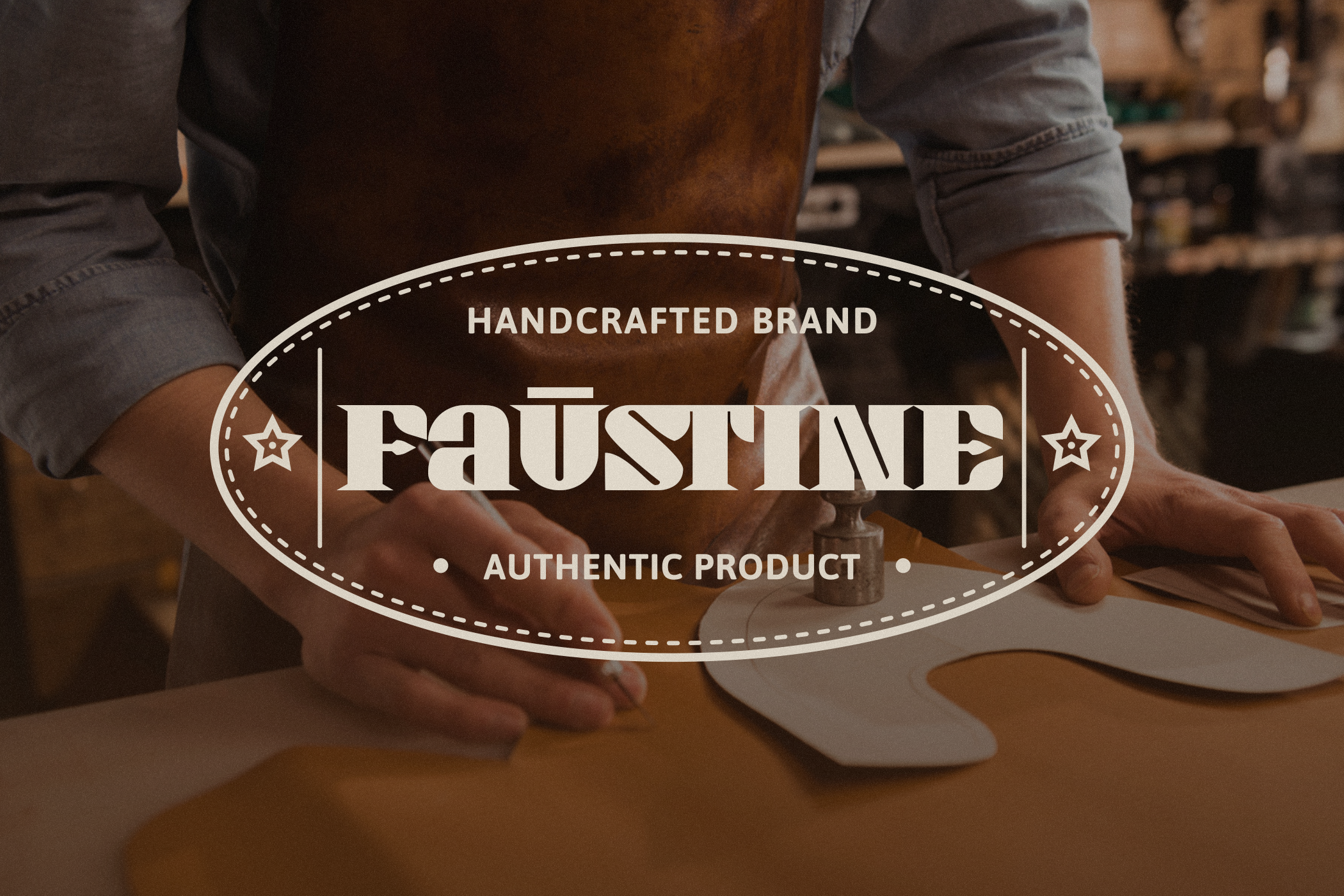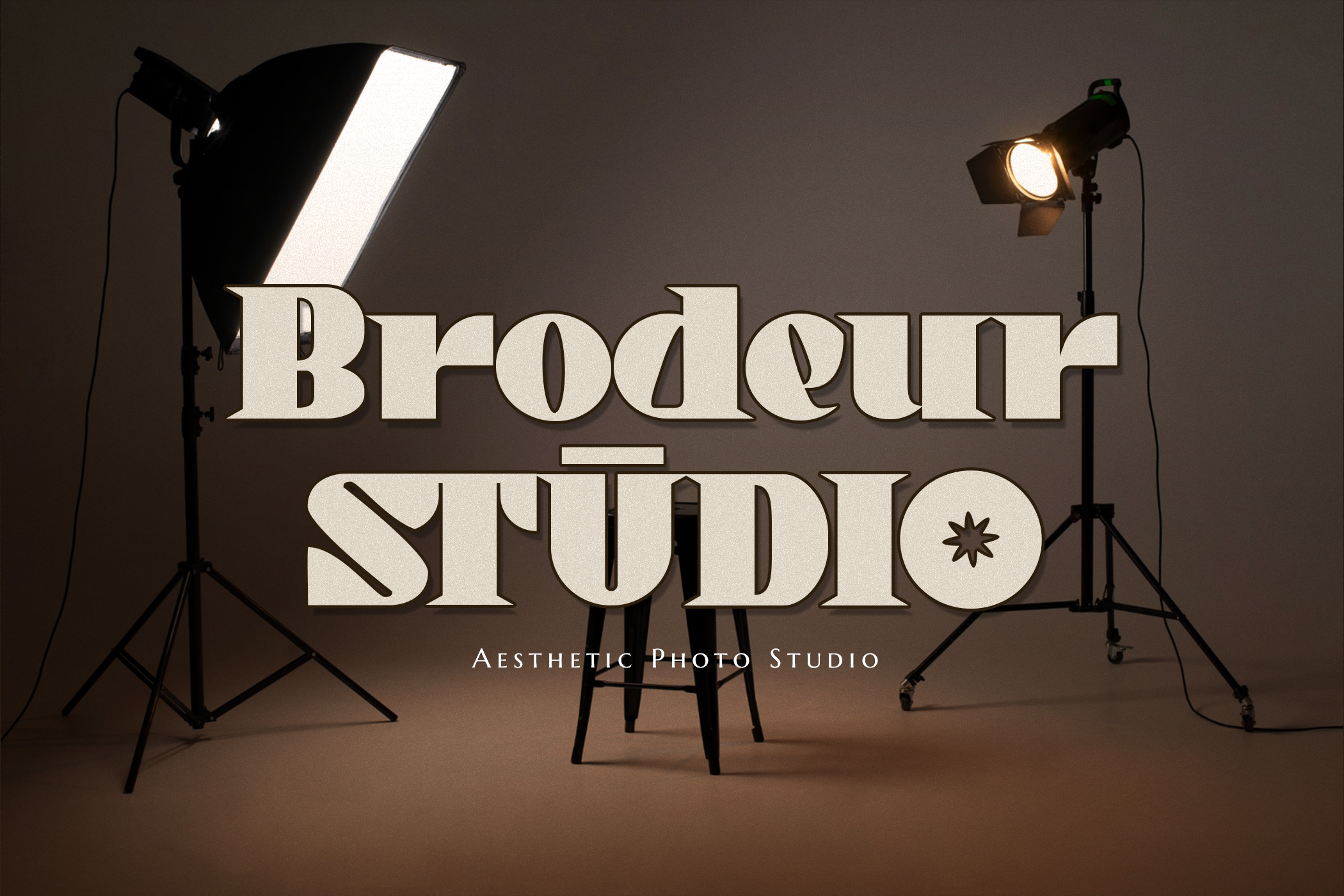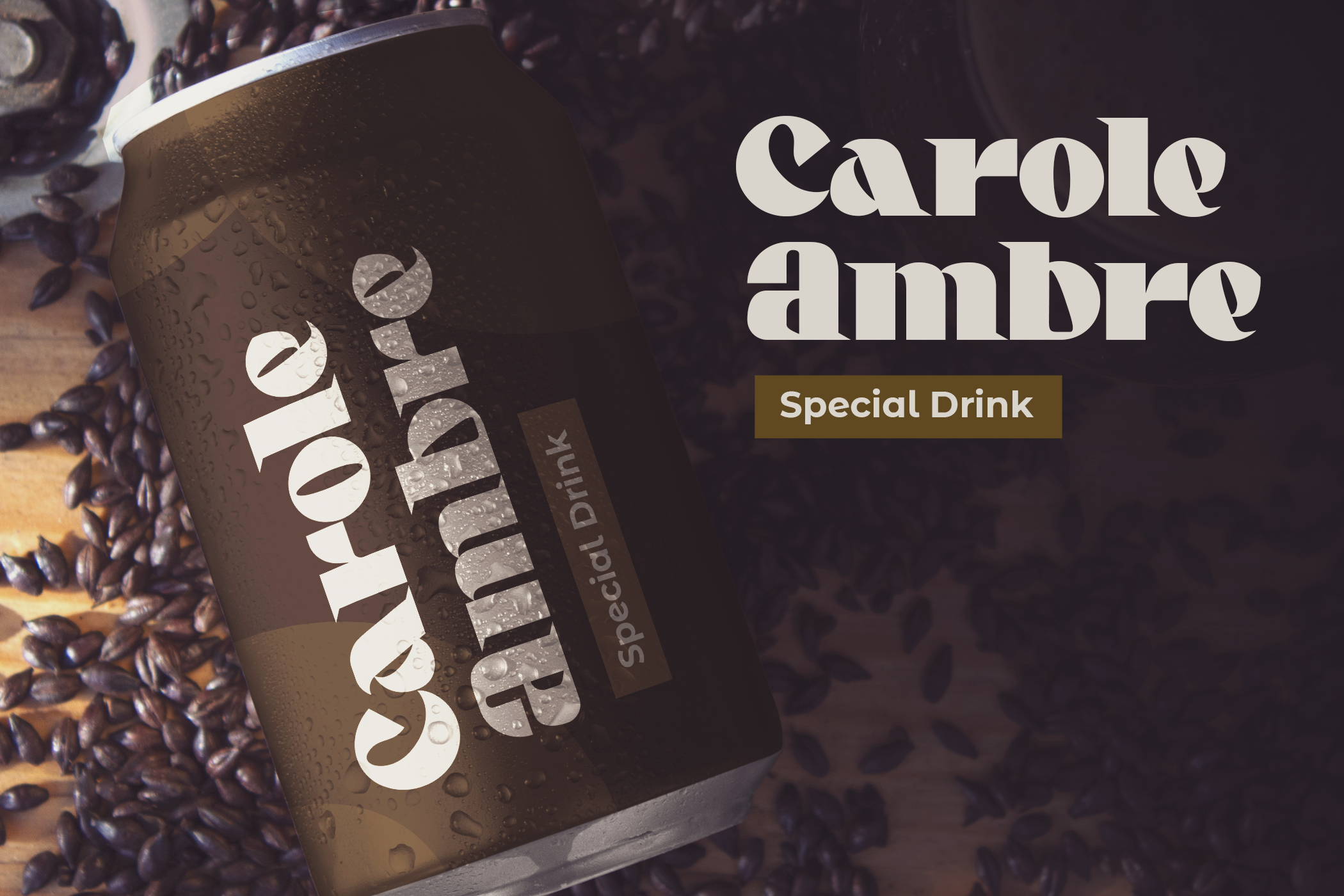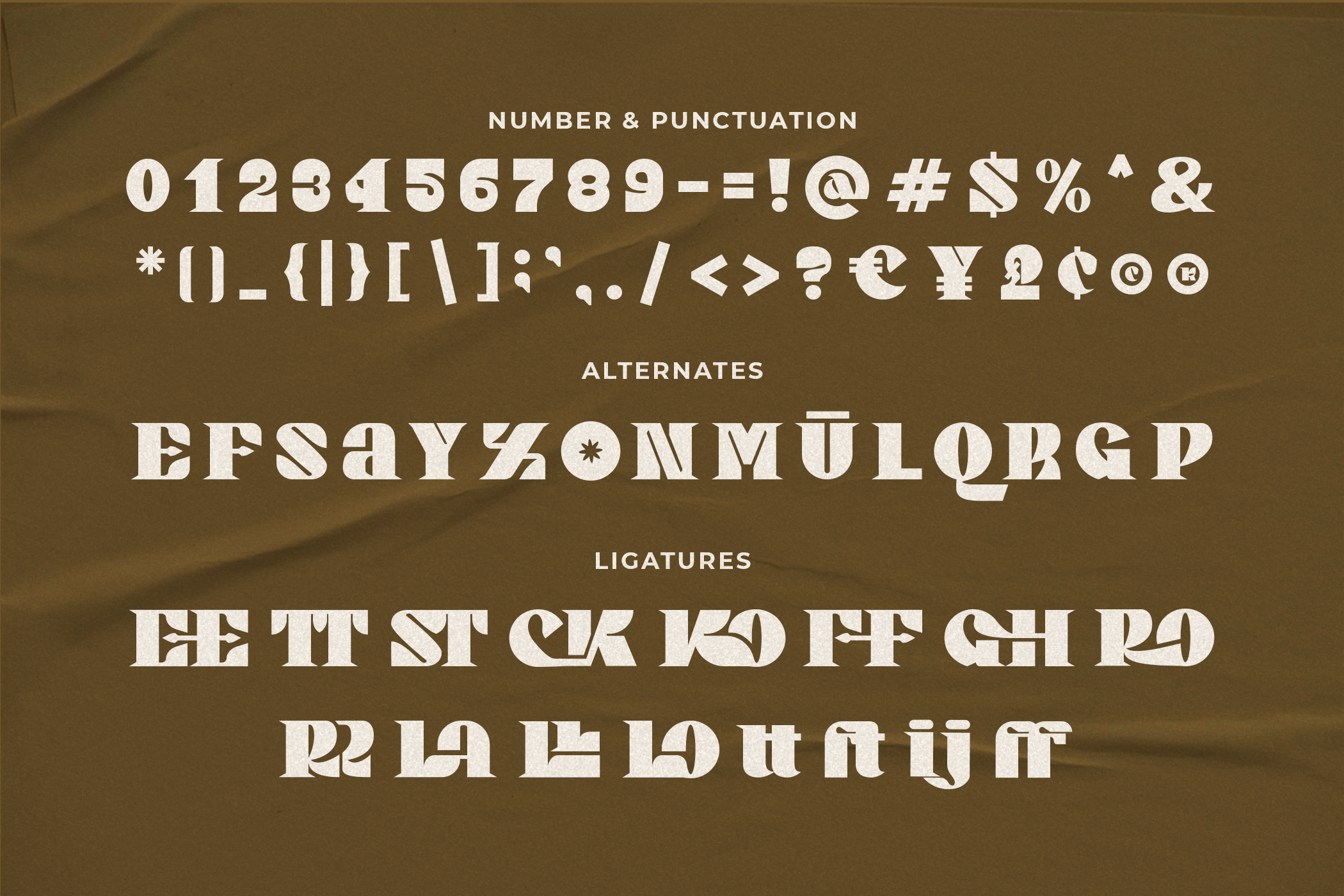
Warlock Display Vintage
Warlock, A unique display font that packs a punch of strong visual impact, carving out a space for your brand to stand apart.
Warlock is perfect for branding projects, logos, wedding designs, social media posts, advertisements, product packaging, product designs, label, photography, watermark, invitation, stationery, and any projects that need handwriting taste.